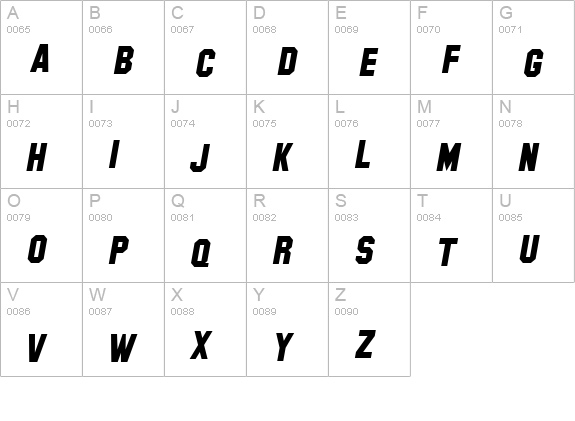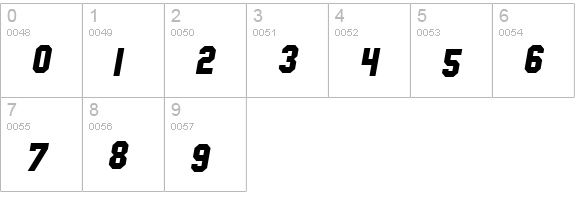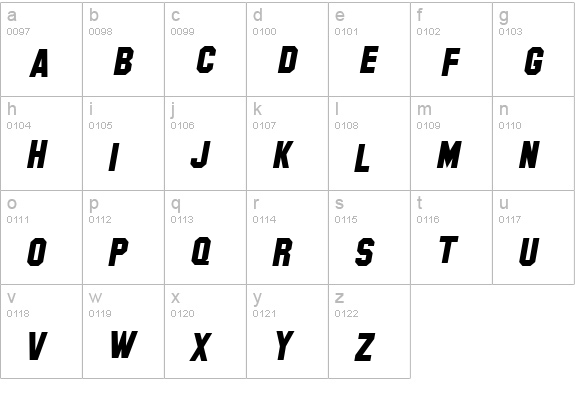
SF Hollywood Hills Italic Font Details
SF Hollywood Hills Italic is a distinctive, italic variant in the SF typeface family \xE2\x80\x94 well suited to design and typography projects.
Introducing SF Hollywood Hills Italic, a sleek and sophisticated font that perfectly captures the essence of Hollywood glamour. With its elegant curves and dramatic slant, this font is sure to make a statement in any design project. SF Hollywood Hills Italic offers a unique blend of modernity and classic Hollywood charm. Its italic style adds a touch of elegance and sophistication, making it perfect for high-end branding, movie posters, invitations, and more. Whether you're designing for a red-carpet event or simply want to add a touch of Hollywood style to your project, this font is the perfect choice. What sets SF Hollywood Hills Italic apart is not only its stunning design but also its availability. This font is freely available to download at FontsMarket.com, allowing designers and creatives to access its beauty without any barriers. Now you can effortlessly incorporate the allure of Hollywood into your designs, all at no cost. So don't miss out on this opportunity to elevate your design game with SF Hollywood Hills Italic. Download it today and let your creativity shine with this captivating font.